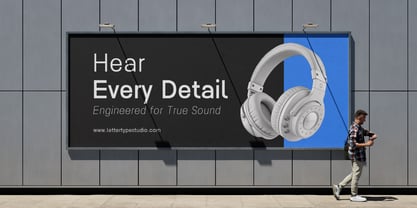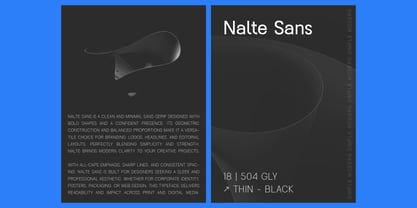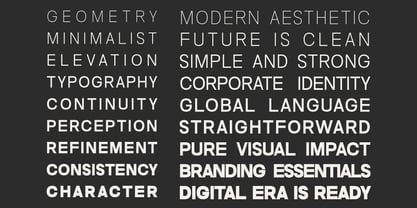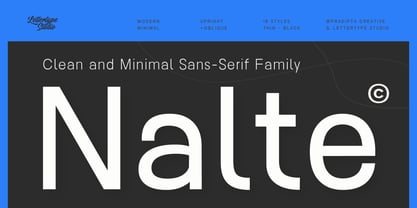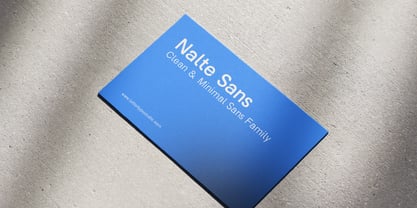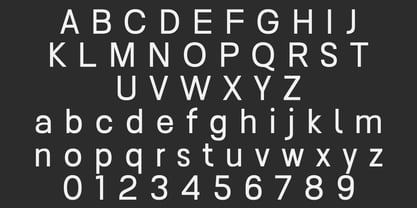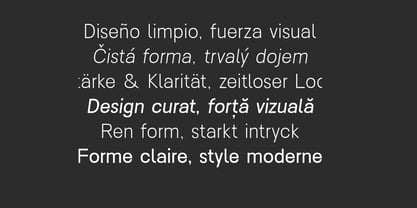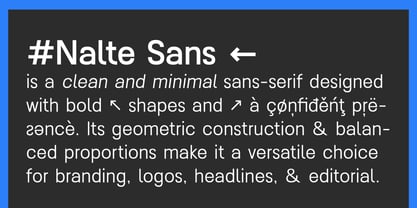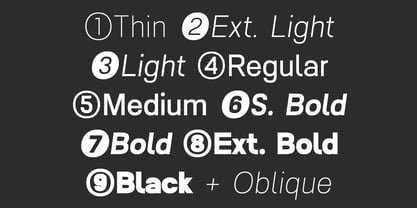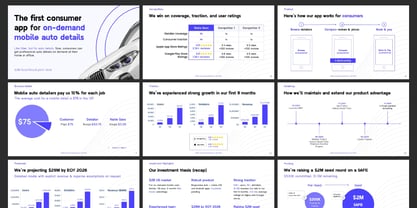
Nalte Sans
by Lettertype Studio
The Nalte Sans Font Family was designed by Diki Pradipta Tri Atmojo and published by Lettertype Studio. Nalte Sans contains 18 styles and family package options. More about this family
Nalte Sans is a minimal and bold display typeface built for striking branding and clean visual presence. With sharp geometric forms and a clean structure, Nalte delivers the perfect balance of modern boldness and timeless simplicity. Its short and punchy name reflects the font’s strong and confident style, making it ideal for logotypes, corporate identity, and editorial design. Designed with branding in mind, Nalte shines in headlines, packaging, posters, and digital hero sections. Its minimal letterforms make it versatile across print and digital media, while its bold presence ensures that every word carries impact. Whether for fashion, tech, or creative branding, Nalte is a display font that makes a statement with clarity and power.
Designers: Diki Pradipta Tri Atmojo
Foundry: Lettertype Studio